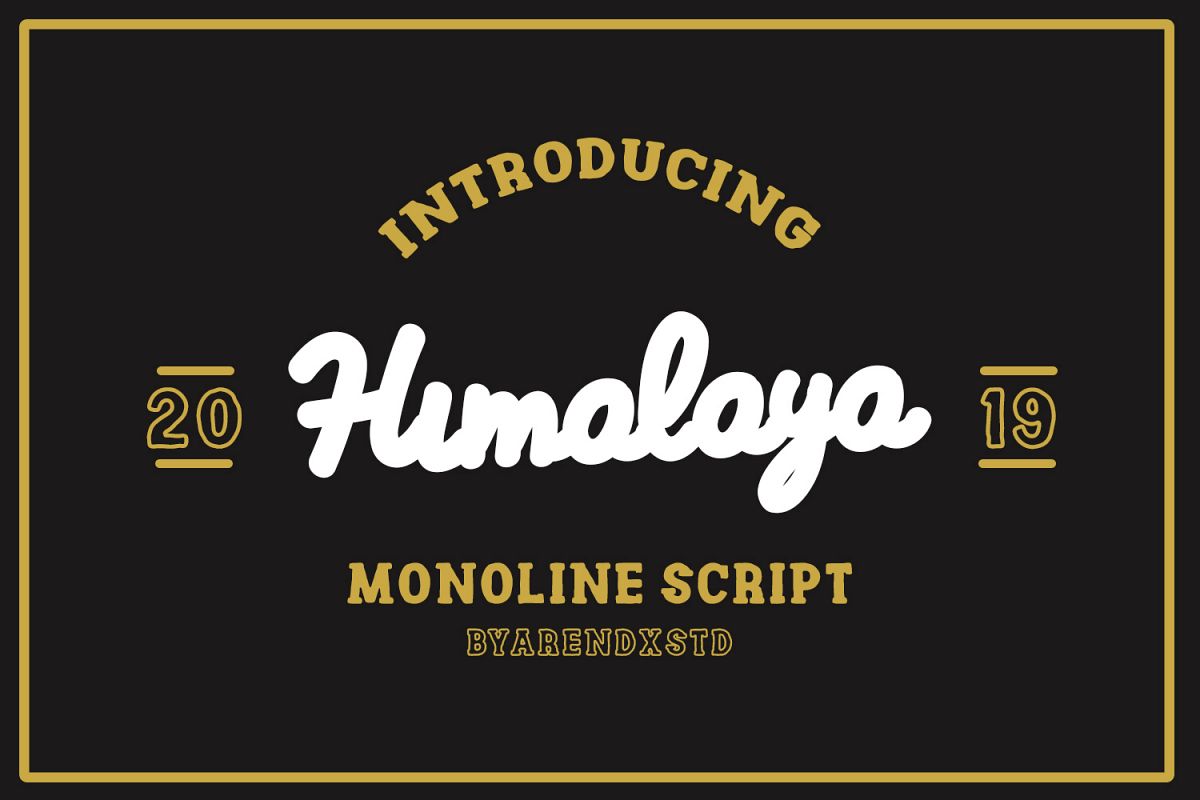
Himalaya Monoline Scripts
Introducing Himalaya Typeface a rounded vintage monoline. Himalaya is clean modern-vintage display font which inspired from old school letterpress